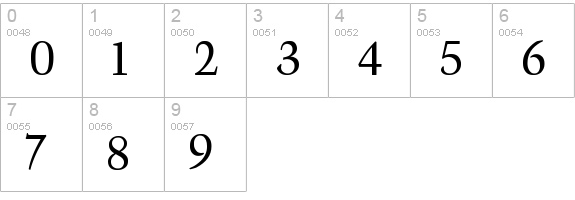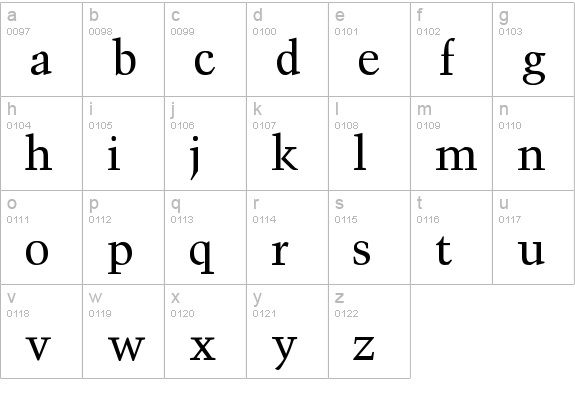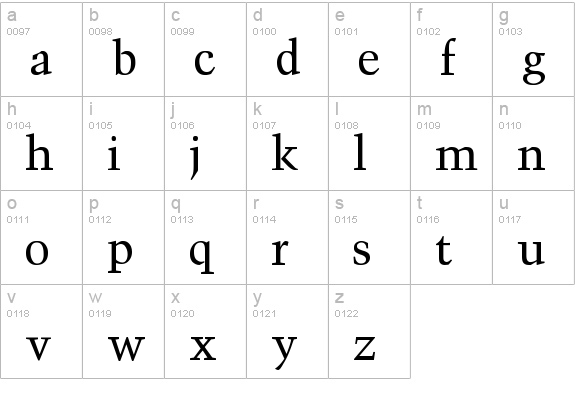
Victima Font Details
Victima font is a striking and modern typeface that exudes elegance and sophistication. With its clean lines and sharp edges, Victima is perfect for creating eye-catching designs that demand attention. This versatile font is highly legible, making it suitable for a wide range of projects, from branding and packaging to editorial design and web content. What sets Victima font apart is not just its sleek aesthetic, but also the fact that it is available for free download at FontsMarket.com. This means that designers and creatives can access this high-quality font without any cost, making it an invaluable resource for both personal and commercial projects. Whether you're looking to elevate your branding or add a touch of refinement to your designs, Victima font is sure to impress with its modern appeal and timeless style.